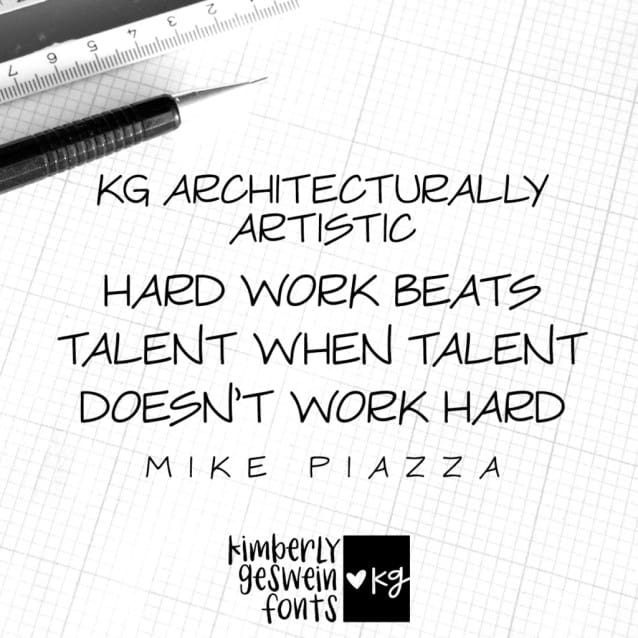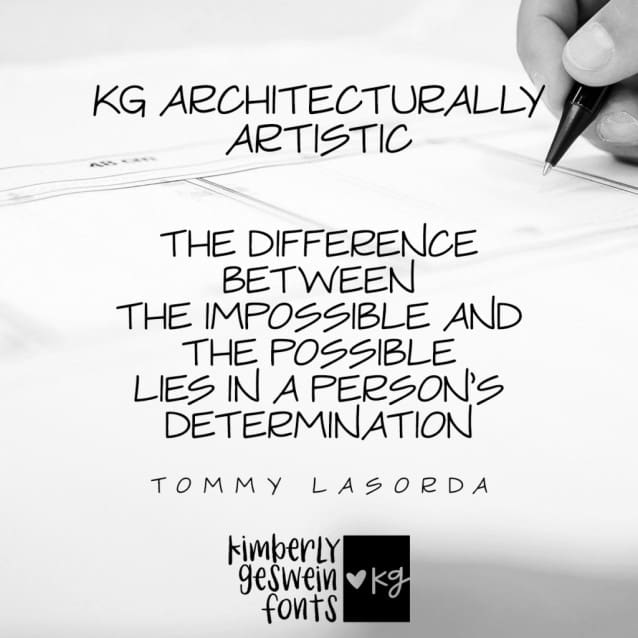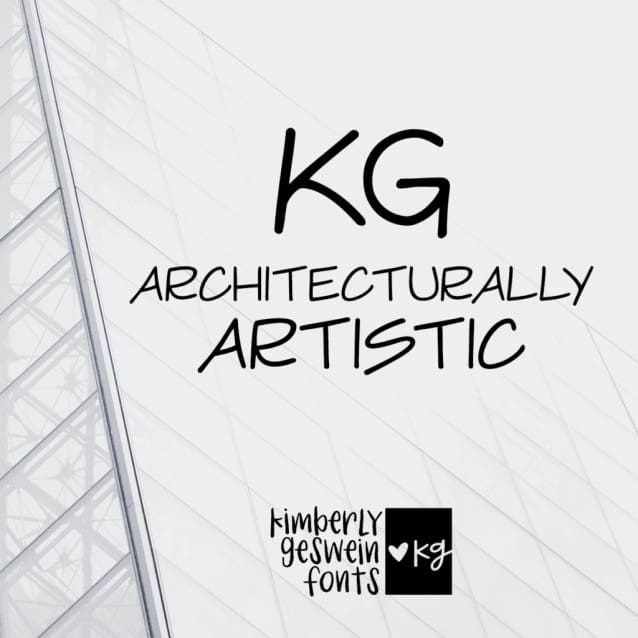
KG Architecturally Artistic Font
KG Architecturally Artistic Font is a neat handwritten font typeface that seamlessly blends the realms of technical precision and architectural elegance. Little details like an extended upstroke on the N give these letters a touch of personality while remaining reminiscent of traditional architecture lettering techniques. This font captures the essence of drafting with its clean lines and structured forms, mirroring the meticulous approach of architects as they bring their visions to life.